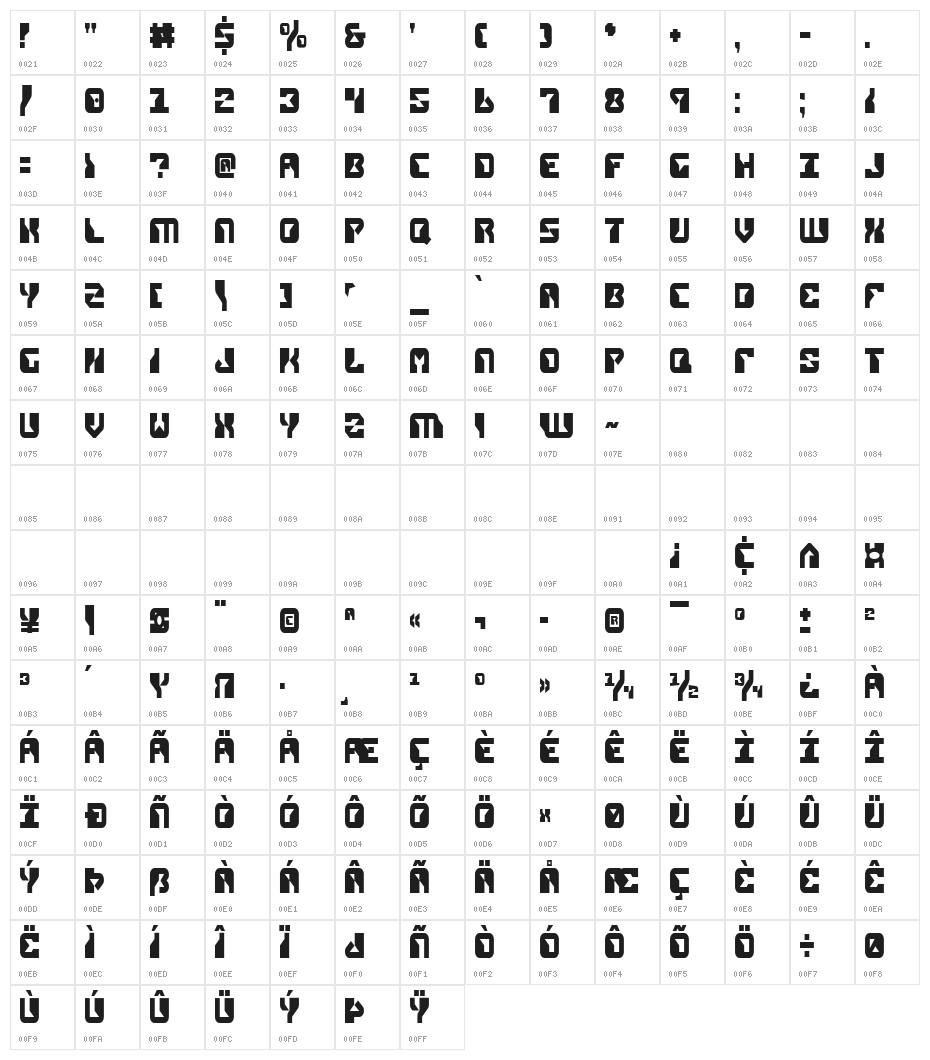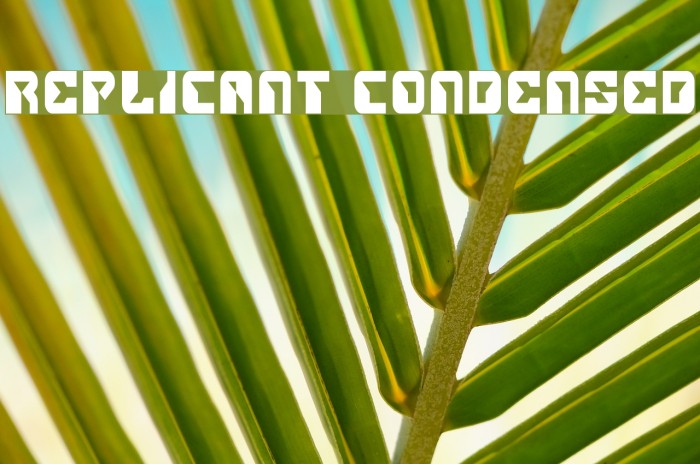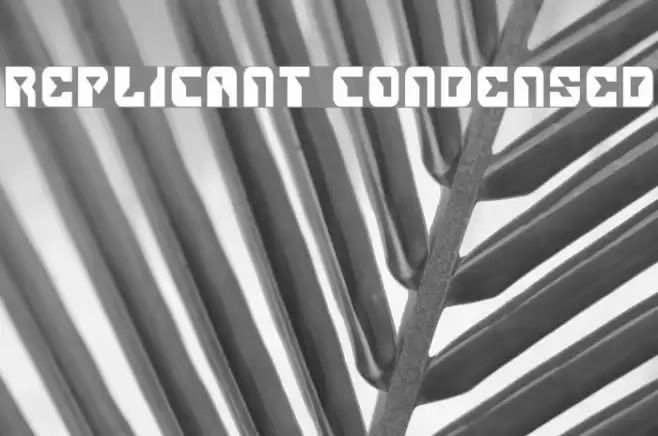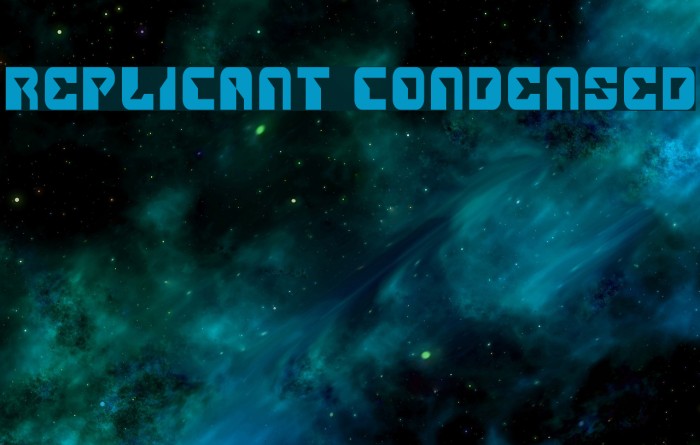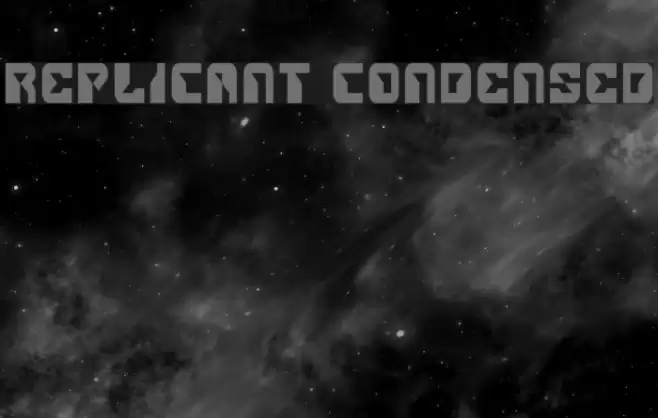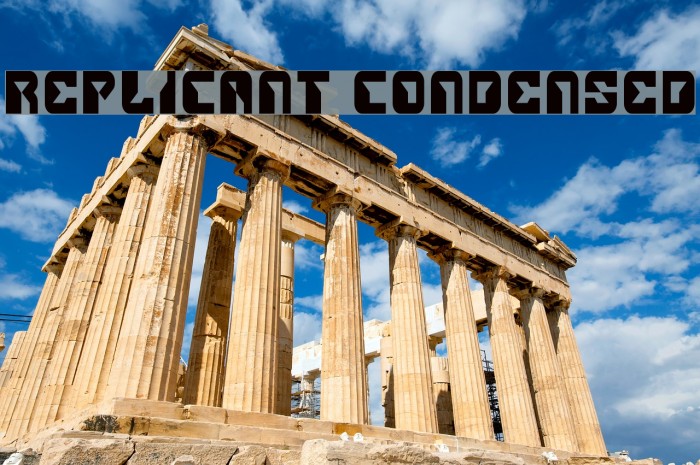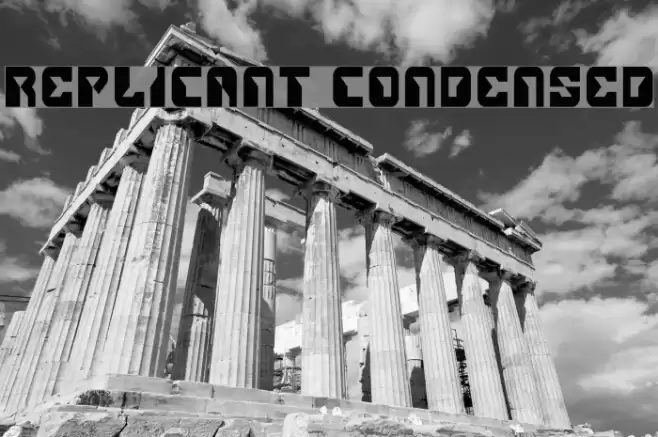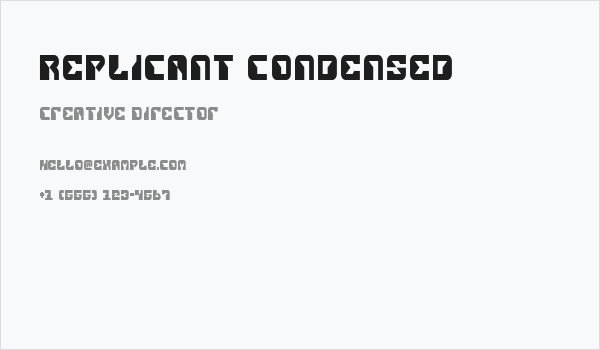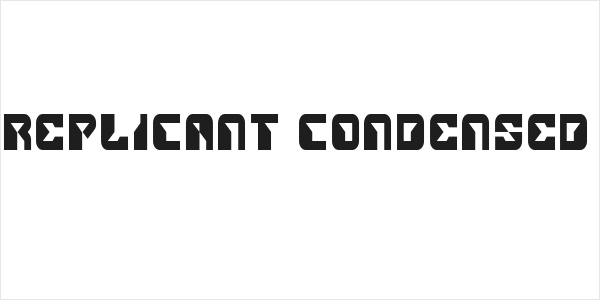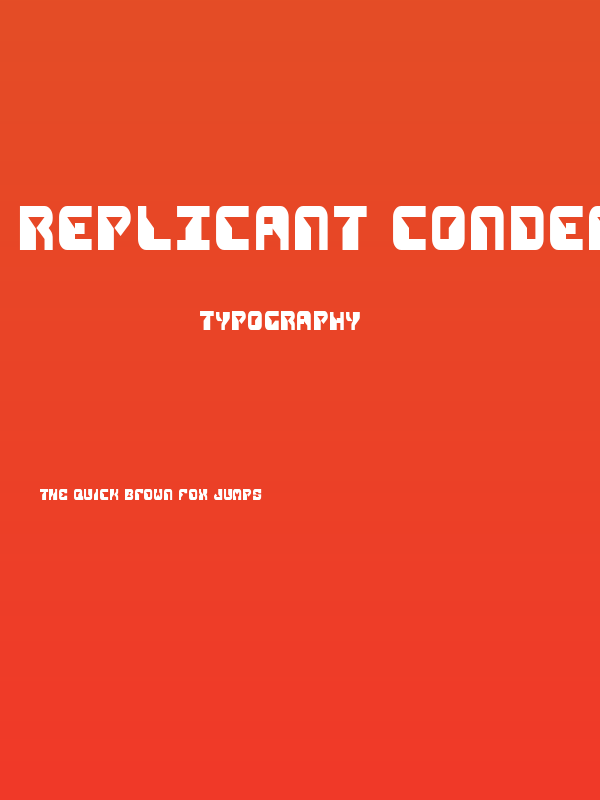
Replicant Condensed Font
Replicant Condensed Description
This font features a bold and futuristic design with a distinctly geometric and angular appearance. The characters are constructed with sharp edges and straight lines, giving it a modern and tech-inspired look. The uppercase and lowercase letters maintain a consistent style, with the uppercase being more prominent and the lowercase slightly more compact. The numbers and special characters follow the same design principles, ensuring uniformity across all glyphs. The condensed nature of the font allows for efficient use of space, making it suitable for headlines and display purposes where impact is essential.